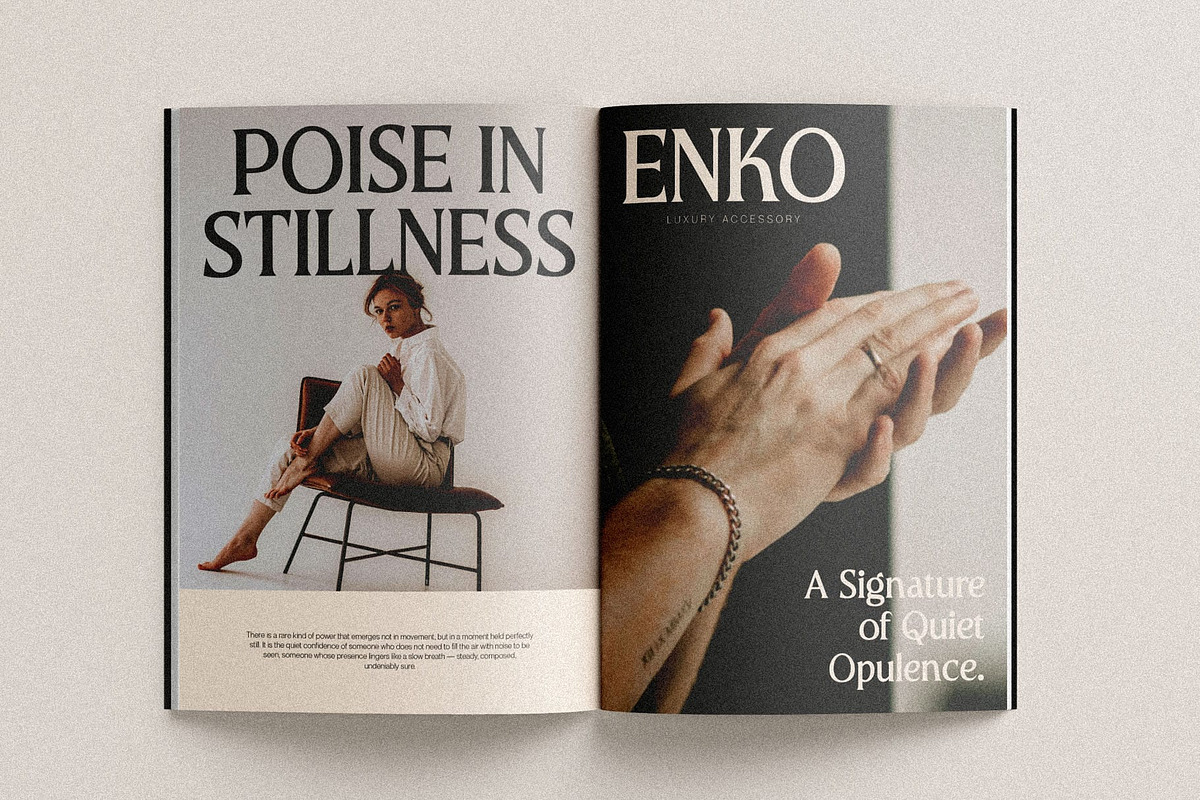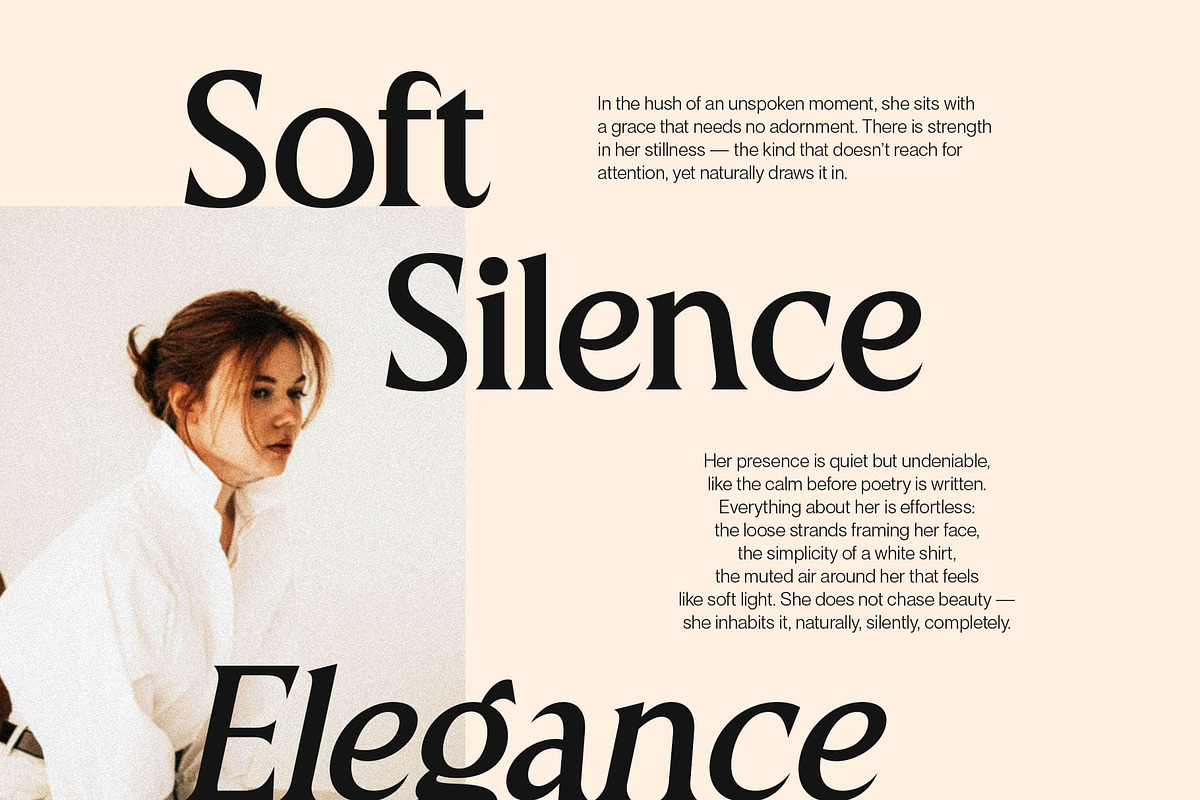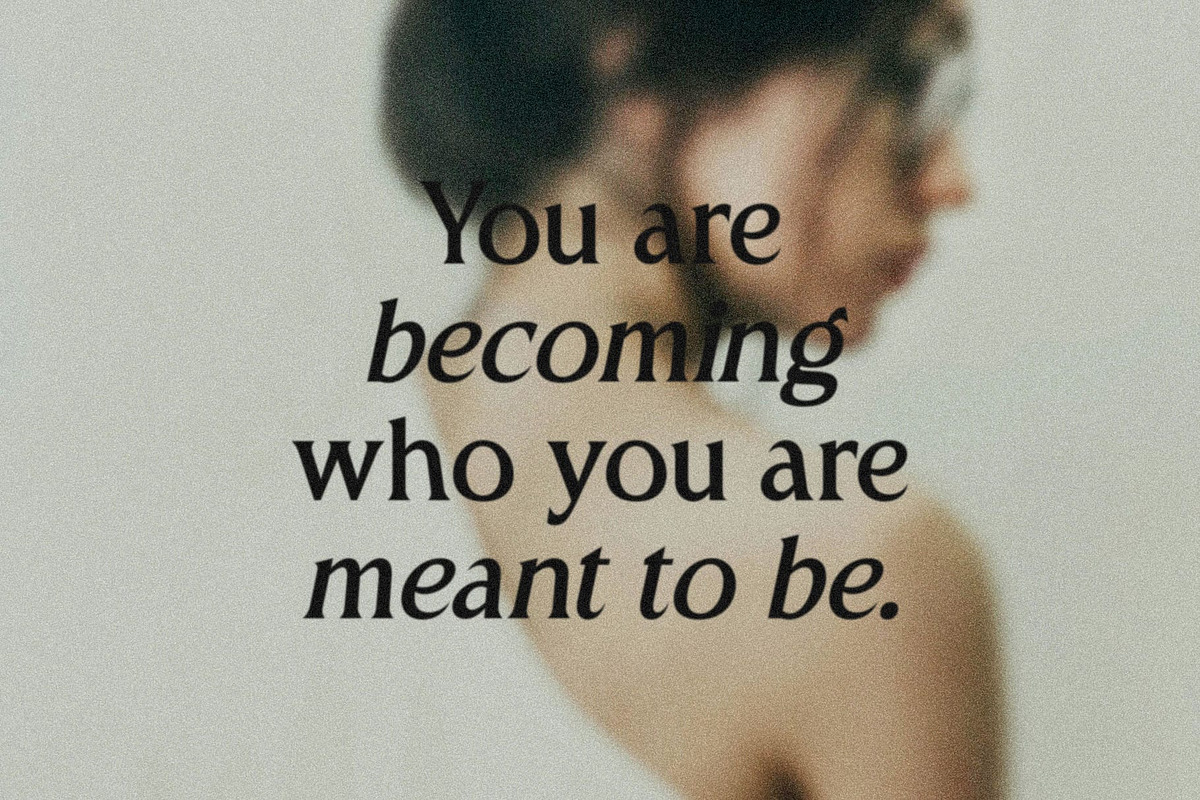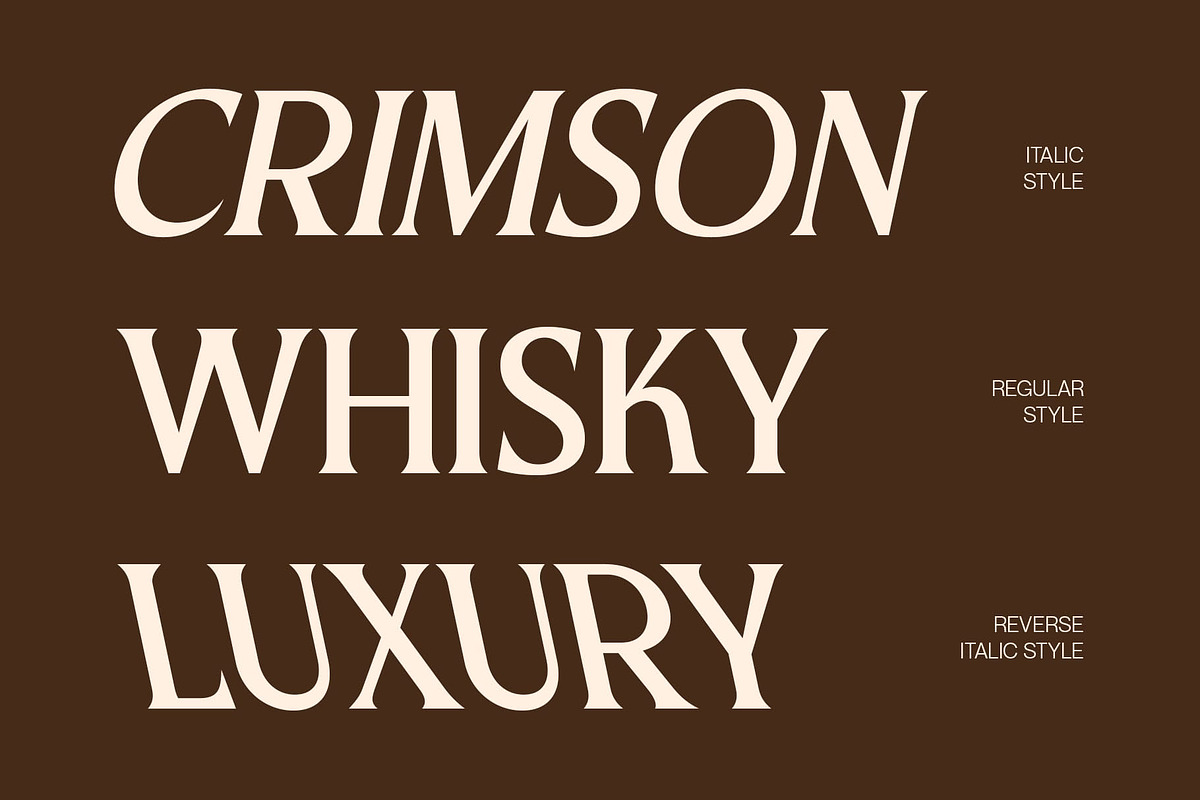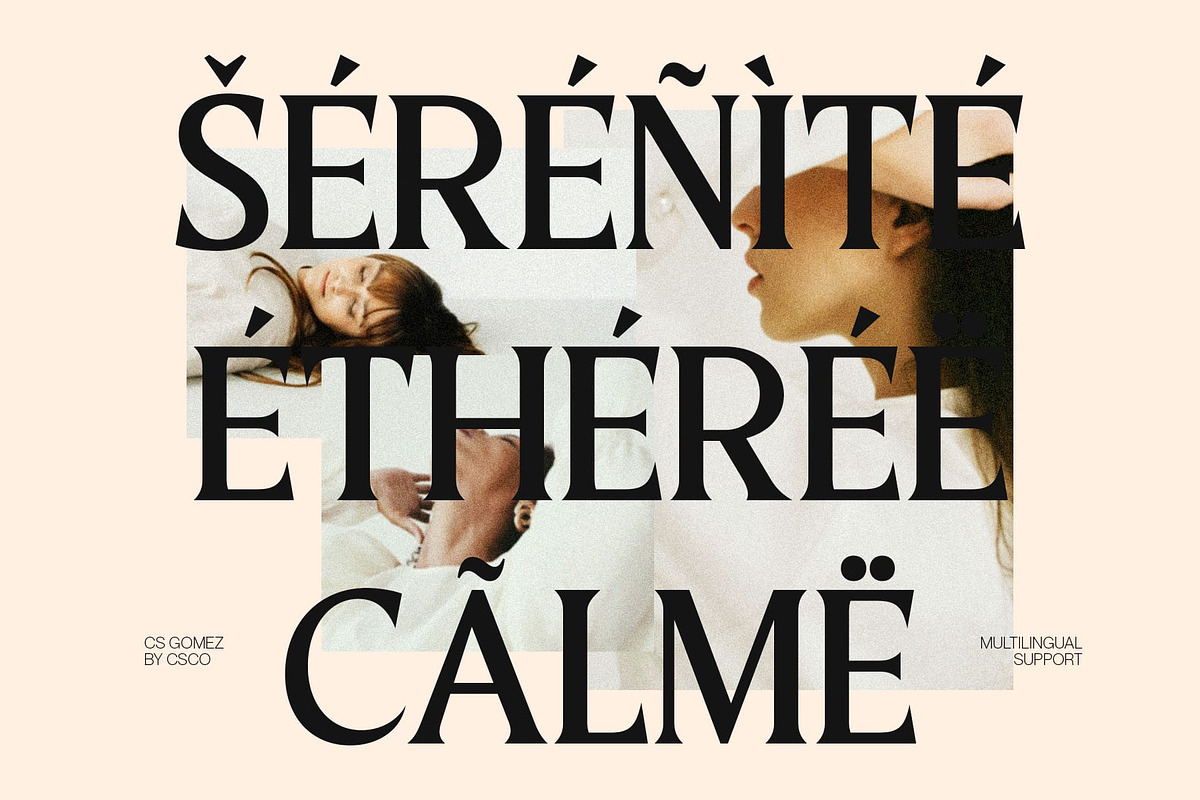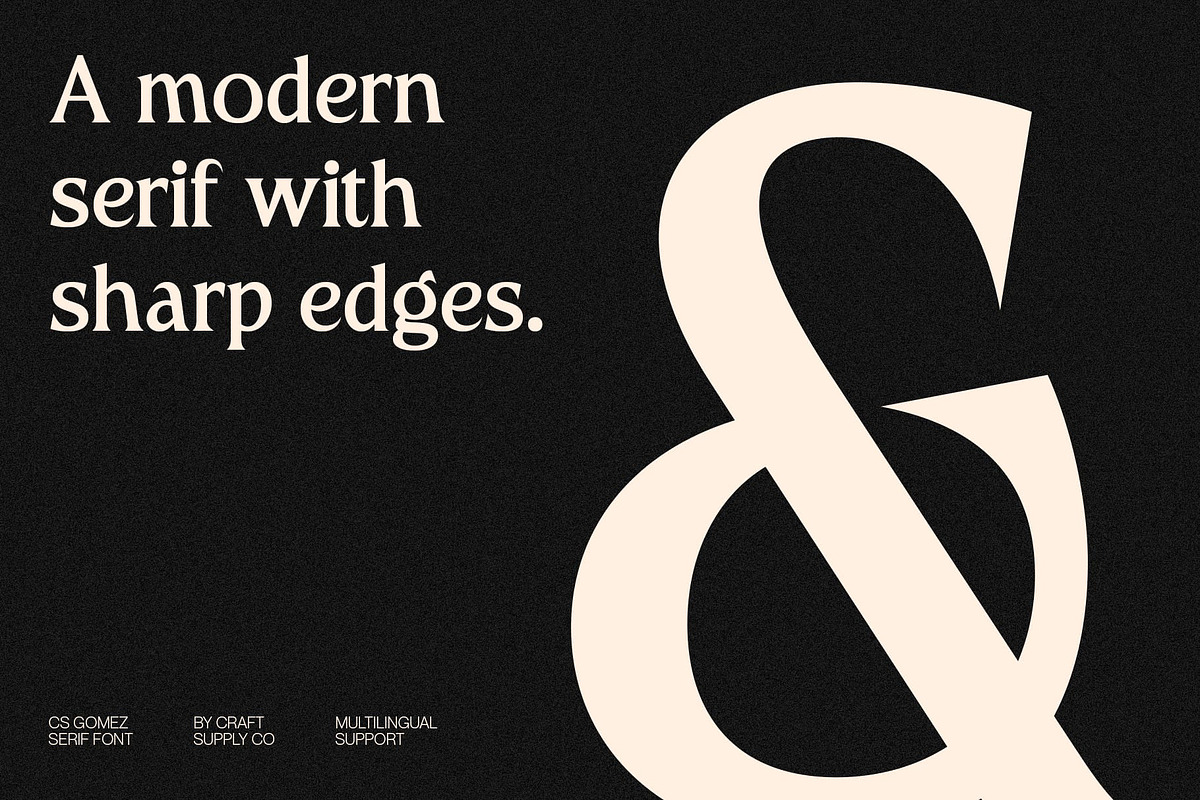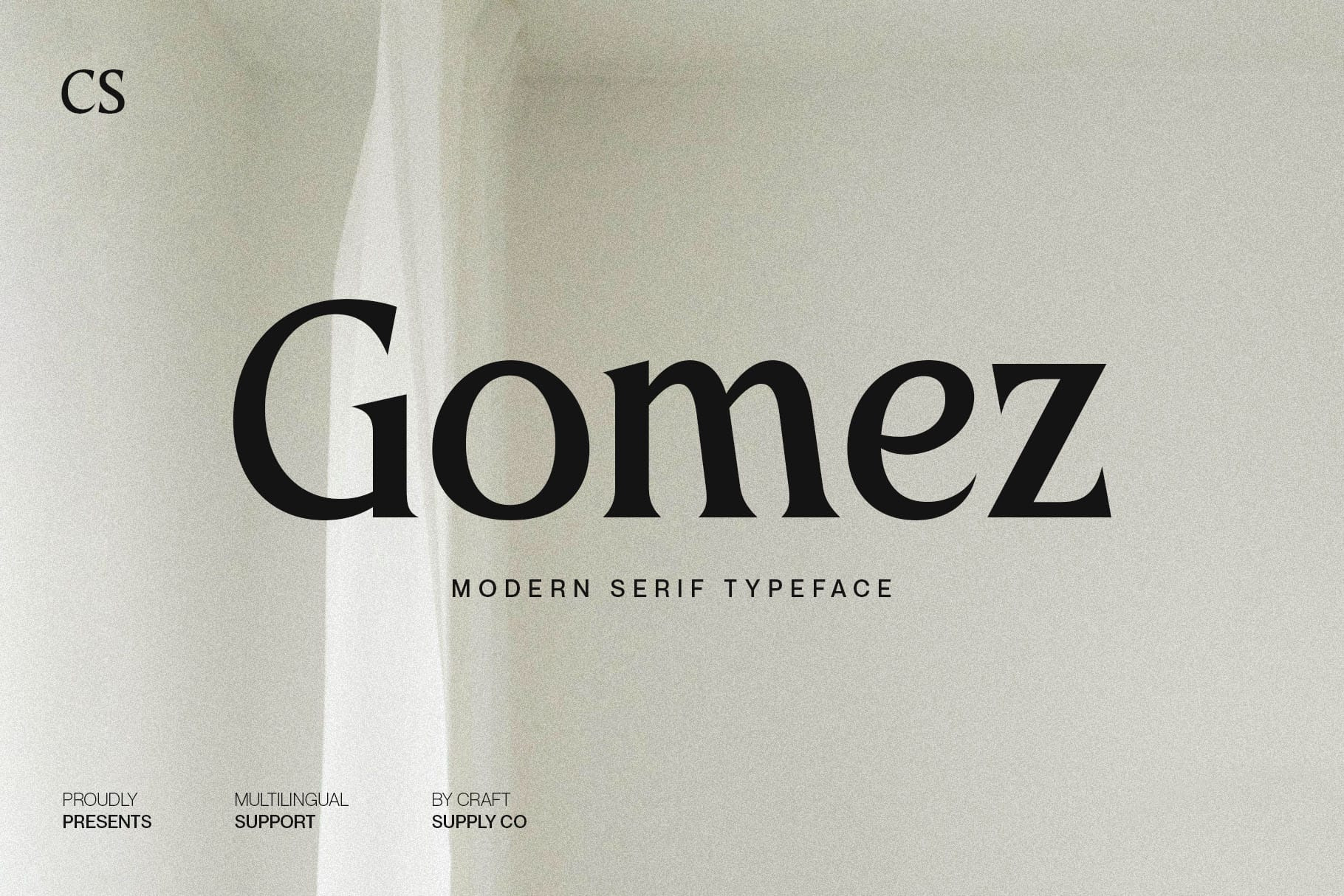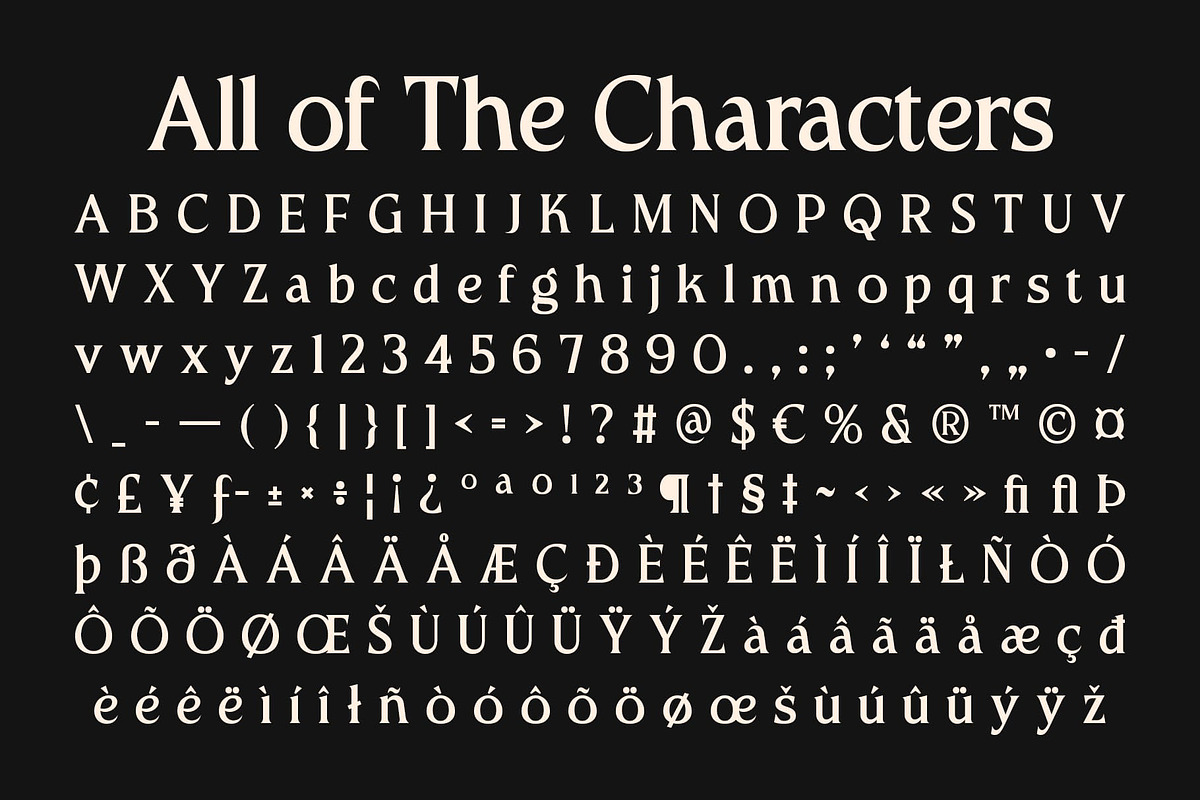
CS Gomez – Modern Serif Font
CS Gomez – Modern Precision with Elegant Confidence
Contemporary Serif with Sharp Character This is a modern serif font defined by its sharp angles and refined proportions, creating a perfect balance between elegance and professionalism. Each letterform showcases meticulous design and modern structure, resulting in a typeface that feels both sophisticated and distinctive.
Sleek Geometry for Refined Expression The crisp angular details give this font a sense of strength and precision, while its modern serif structure maintains a graceful flow. This blend of sharpness and poise brings a subtle dynamic quality to the text, allowing your designs to exude clarity, authority, and modern taste.
Ideal for Luxury and Professional Branding Tailored for luxury brands, editorial layouts, and corporate identities, this font adds a touch of refinement to any visual concept. Whether used for logos, packaging, magazine covers, or premium advertising, it establishes a confident, high-end impression that resonates with style and sophistication.
Elegance with a Modern Edge This font isn’t just a font it’s a statement of modern craftsmanship. The interplay between bold serif precision and clean geometry gives it a distinctive soul, making it perfect for designers who value elegance, power, and timeless appeal in every project.
- CS Gomez Regular
- CS Gomez Italic
- CS Gomez Reverse Italic